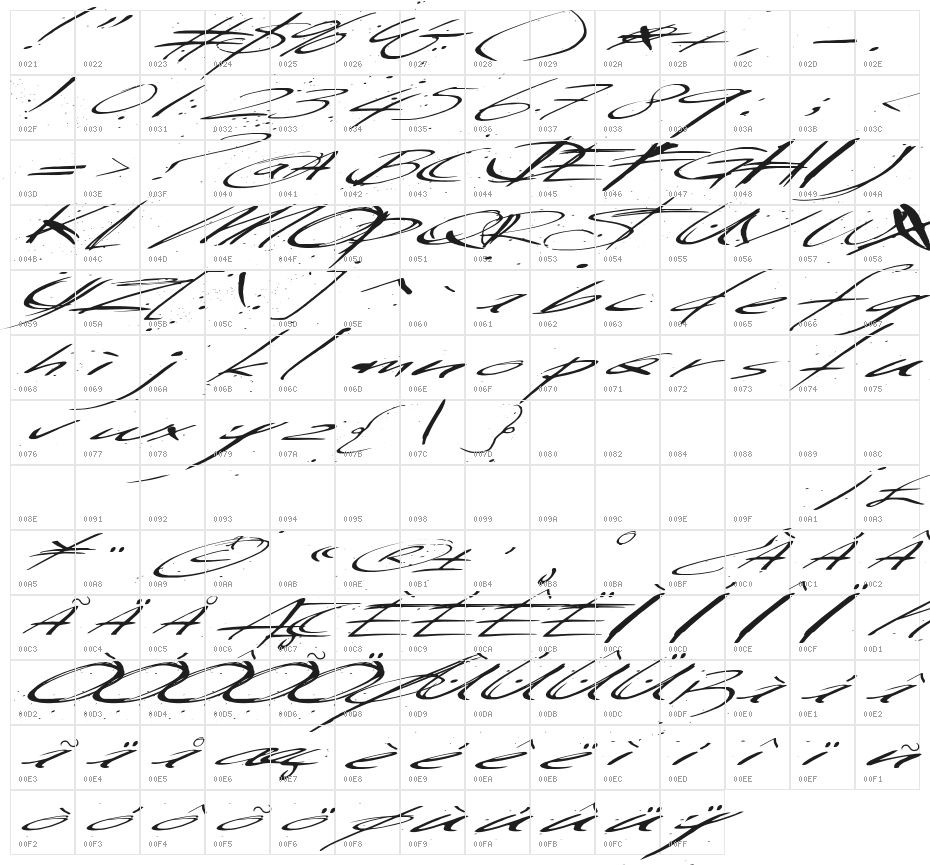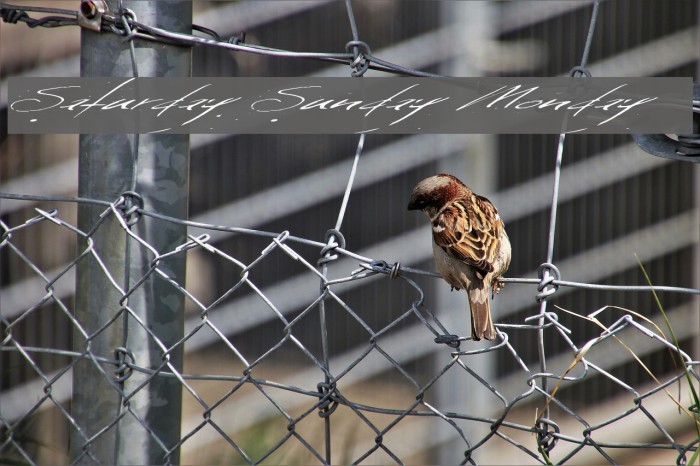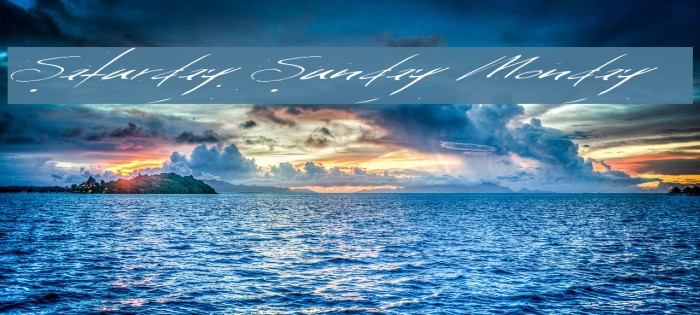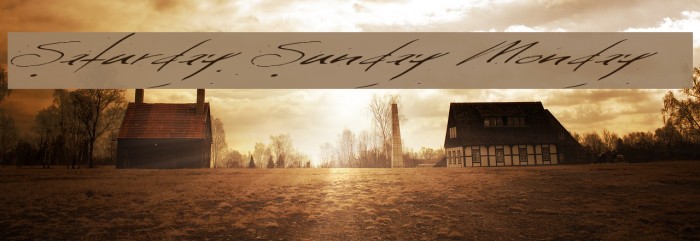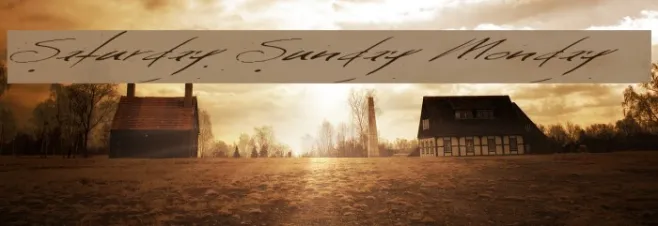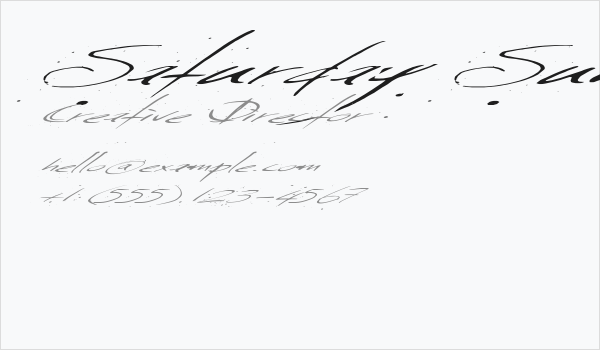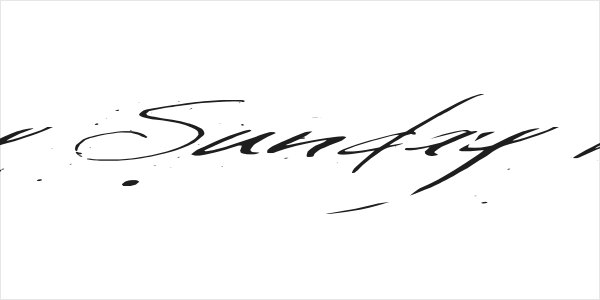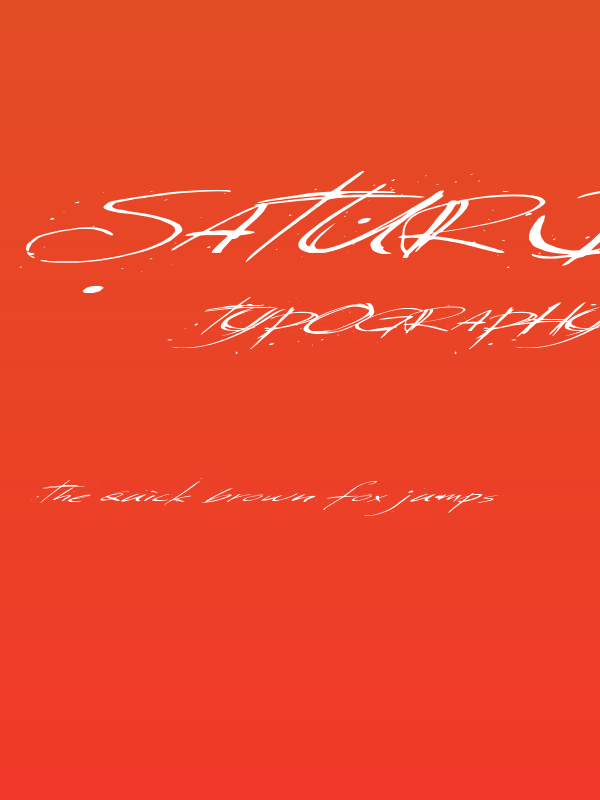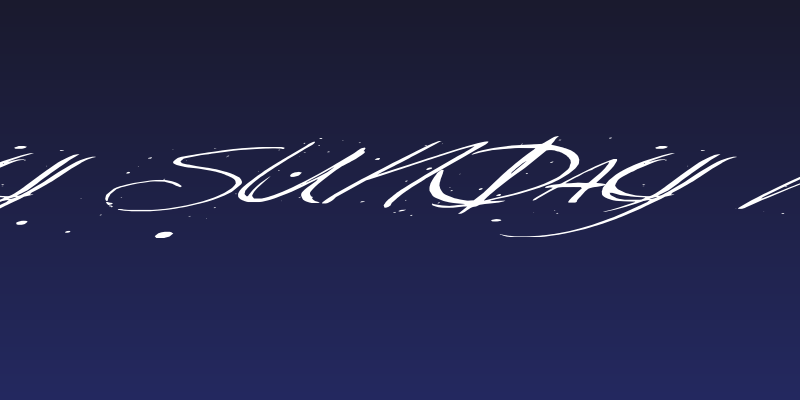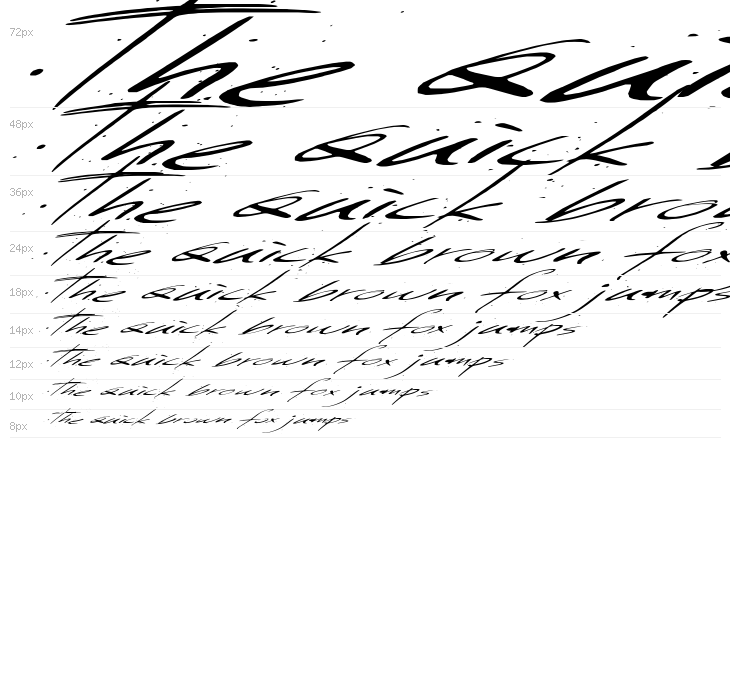
Saturday Sunday Monday Font
Saturday Sunday Monday Description
This font exudes a dynamic and expressive style, characterized by its fluid, handwritten appearance. The strokes are bold and energetic, with a noticeable slant that adds a sense of motion and urgency. The letters are crafted with varying thickness, creating a high contrast that enhances its dramatic flair. The uppercase letters are particularly striking, with elongated forms and sweeping curves, while the lowercase letters maintain a consistent flow. The numerals and special characters follow the same aesthetic, ensuring a cohesive look across all elements. This font is perfect for projects that require a personal, artistic touch.
| Proposed Projects | Ideal for branding, posters, album covers, and any creative project that benefits from a personal, artistic touch. |